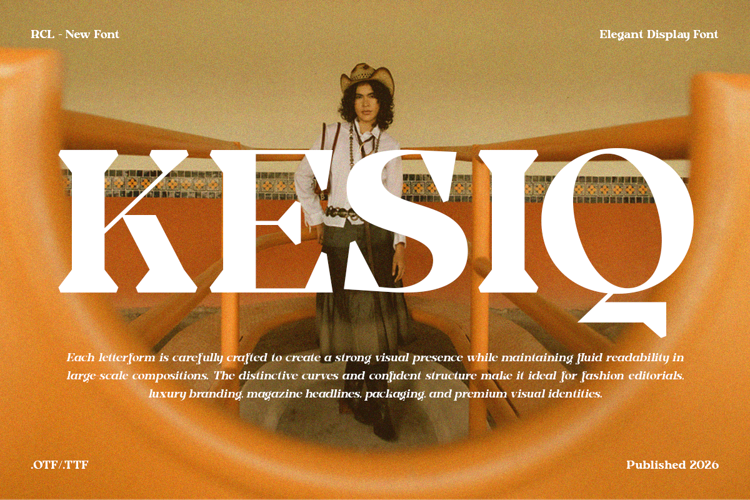
Kesiq - Font
Kesiq carries a refined luxury tone with strong typographic presence, ideal for fashion branding, premium packaging, and upscale visual identities.